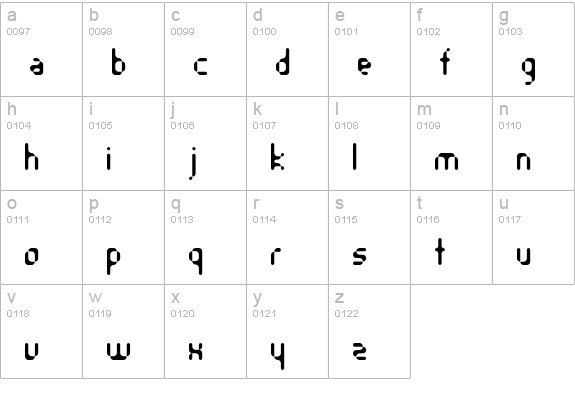
Orgasmia-Regular is the standard, neutral variant in the Orgasmia typeface family \xE2\x80\x94 well suited to general body text, paragraphs, and standard typographic work.